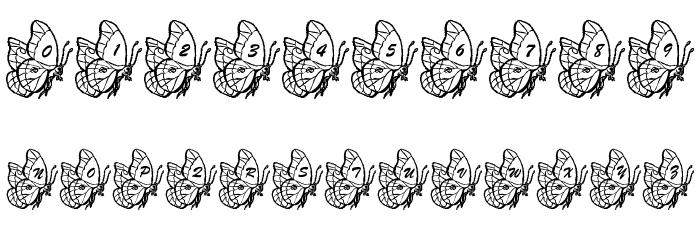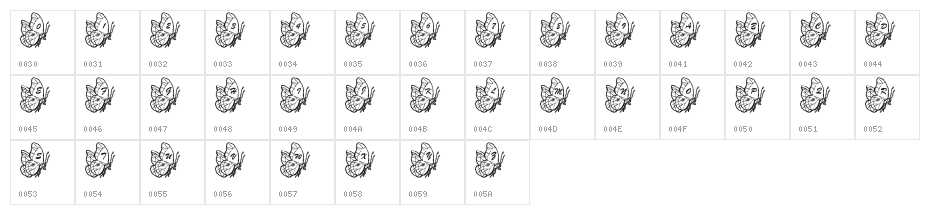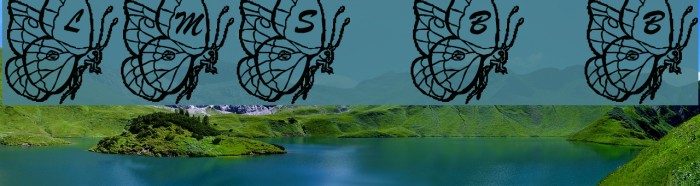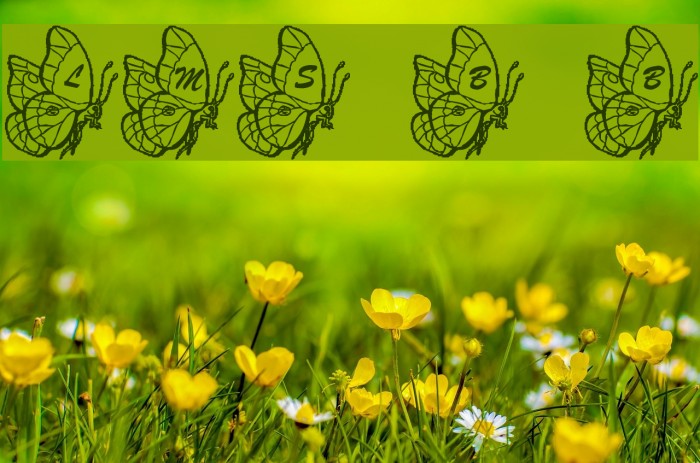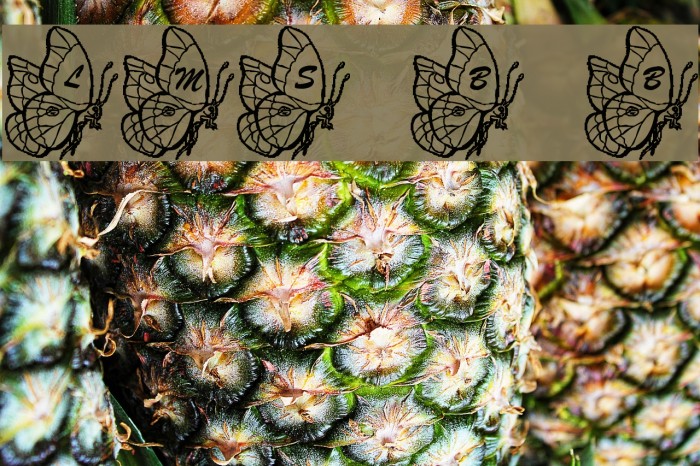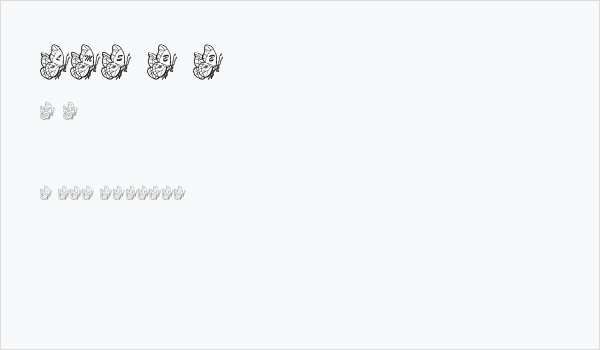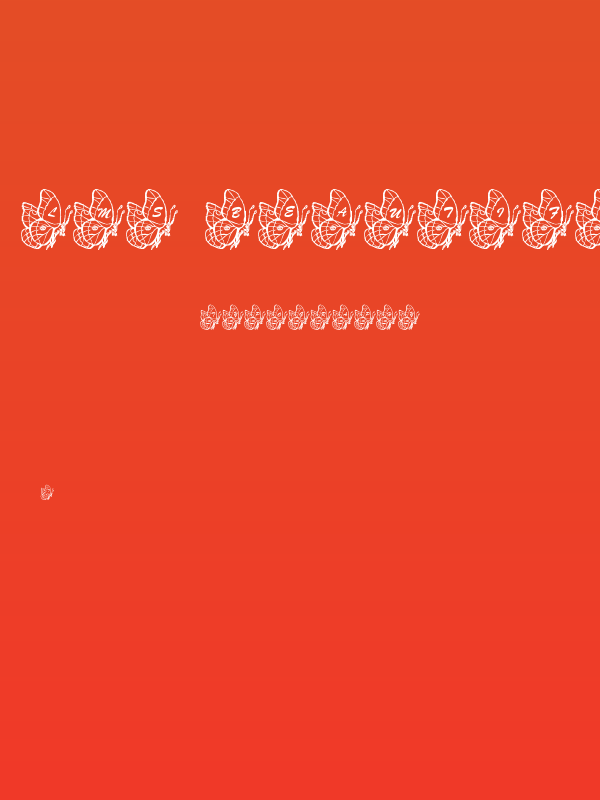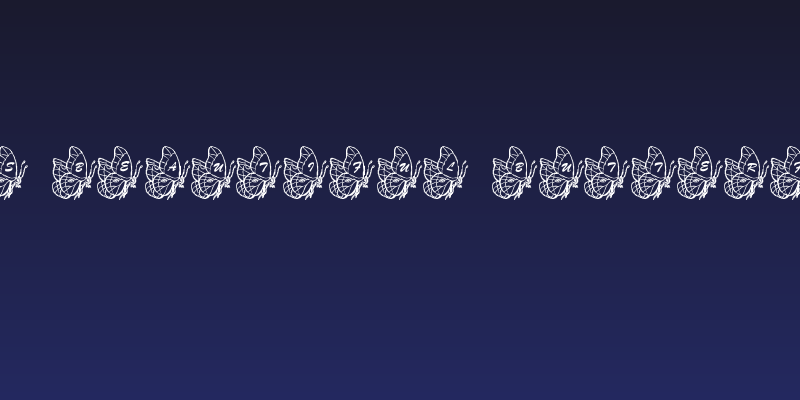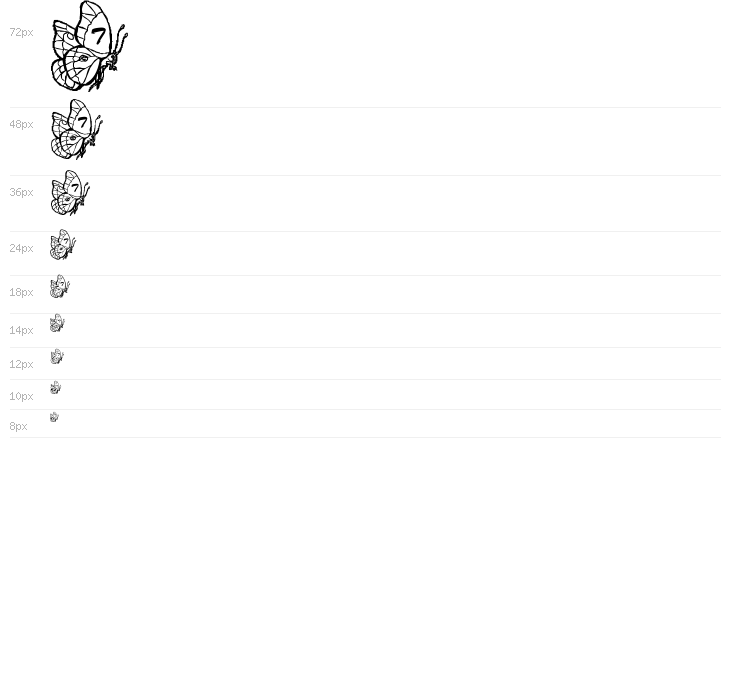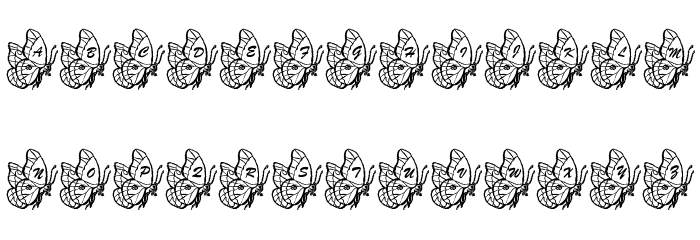
LMS Beautiful Butterfly Font
LMS Beautiful Butterfly Description
This decorative font features each character embedded within an intricate butterfly design. The letters and numbers are elegantly integrated into the wings, creating a whimsical and artistic appearance. The font is highly decorative, making it suitable for projects that require a touch of nature-inspired elegance. The characters are consistent in style, with each butterfly maintaining a similar size and shape, ensuring uniformity across the text. The font is not suitable for body text due to its ornate nature but excels in decorative applications.
| Proposed Projects | Ideal for greeting cards, invitations, scrapbooking, and decorative posters. |